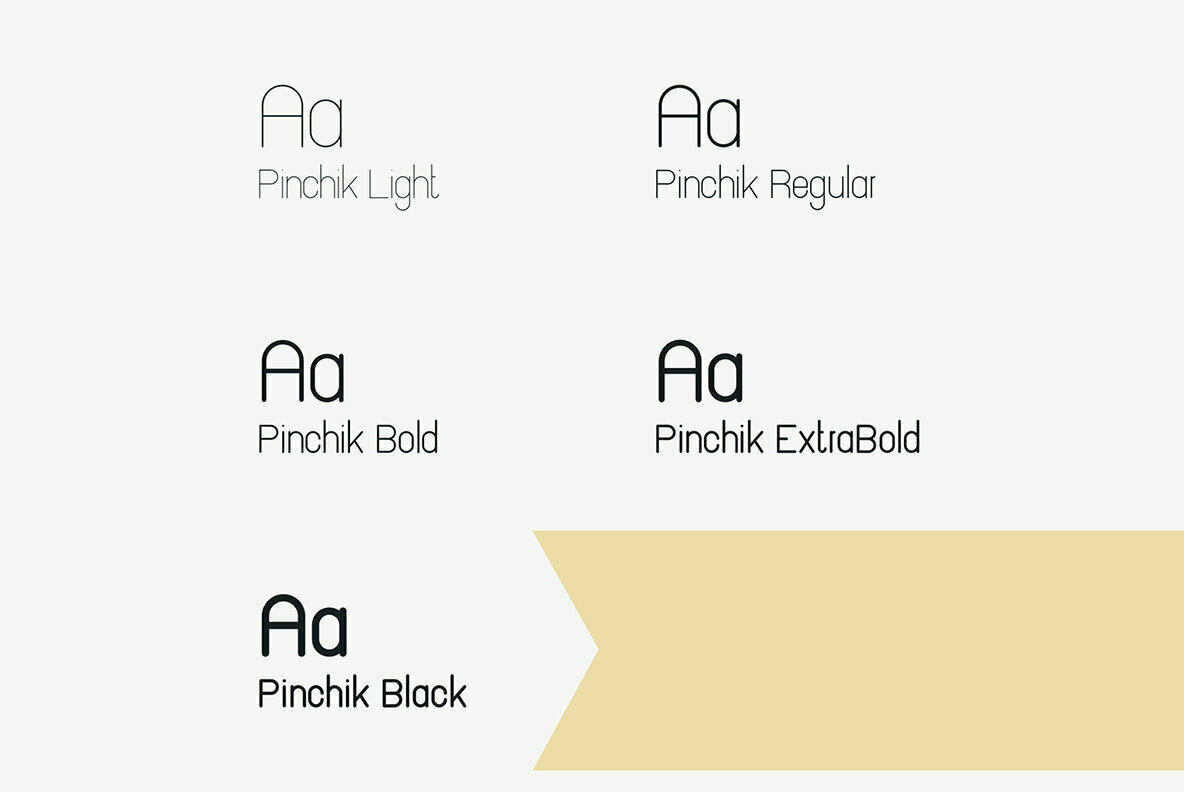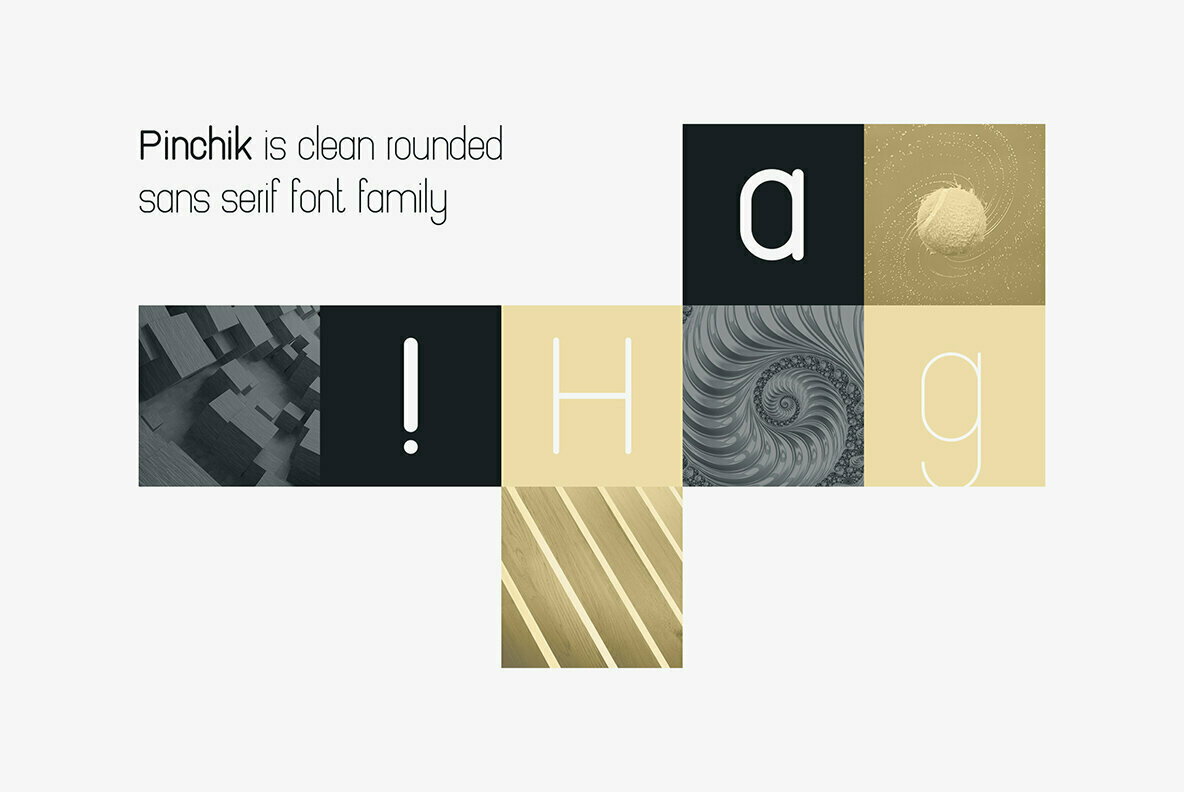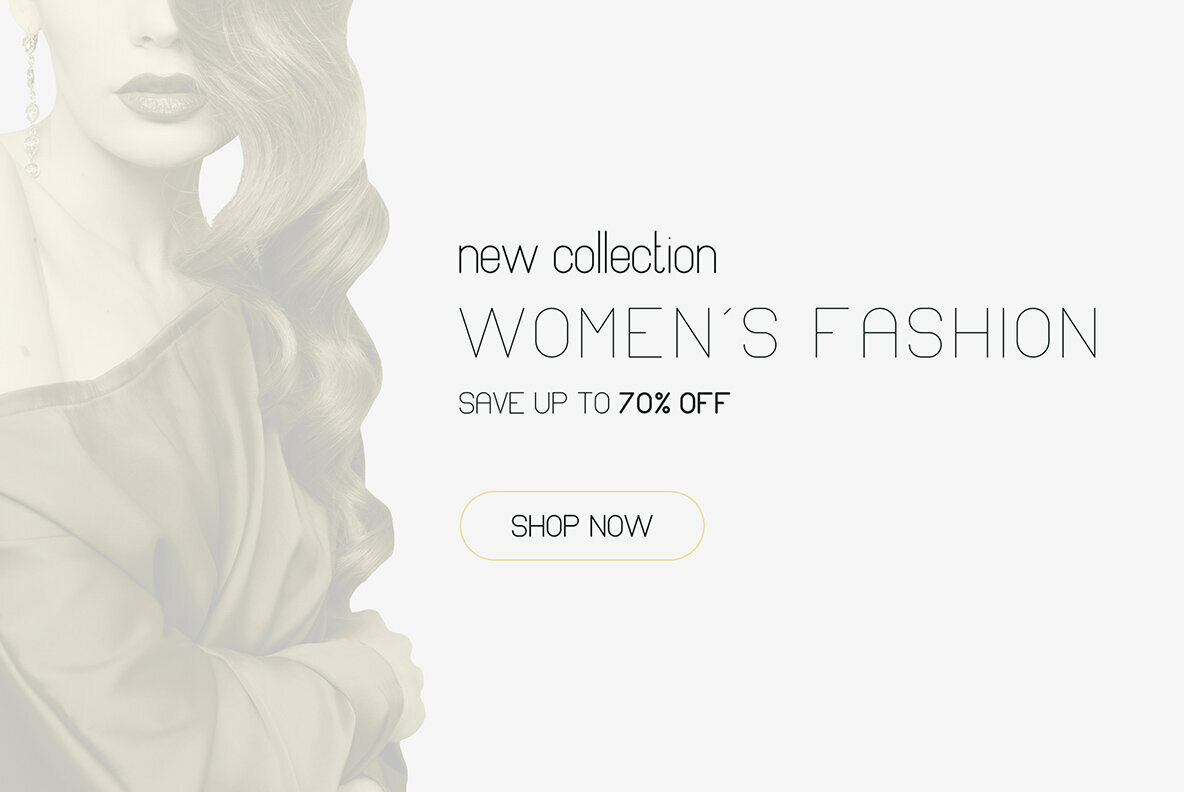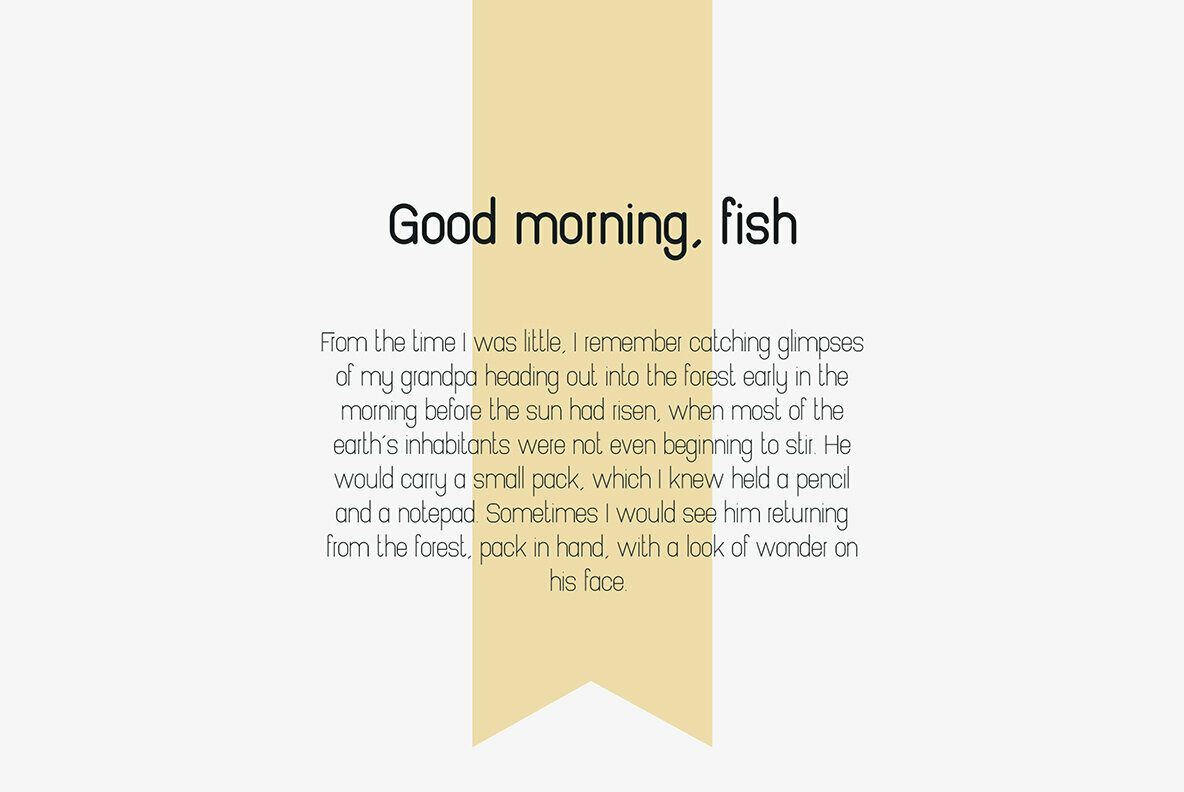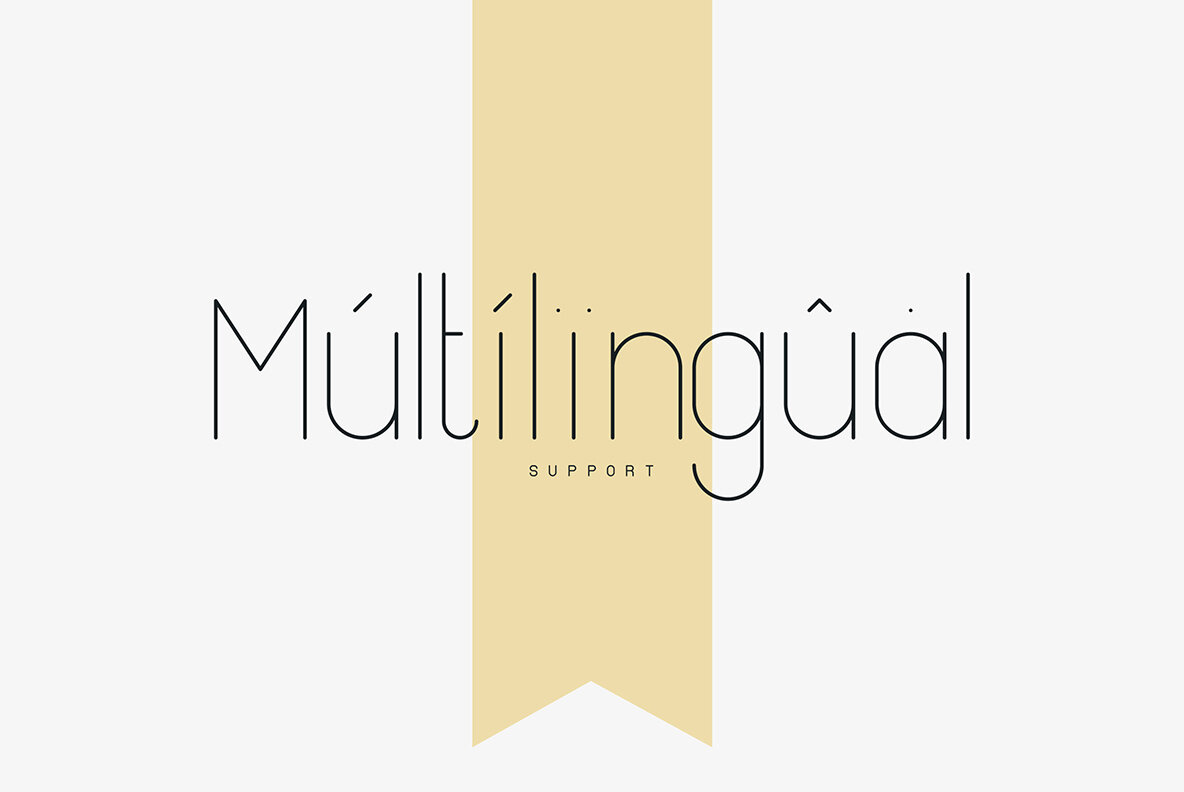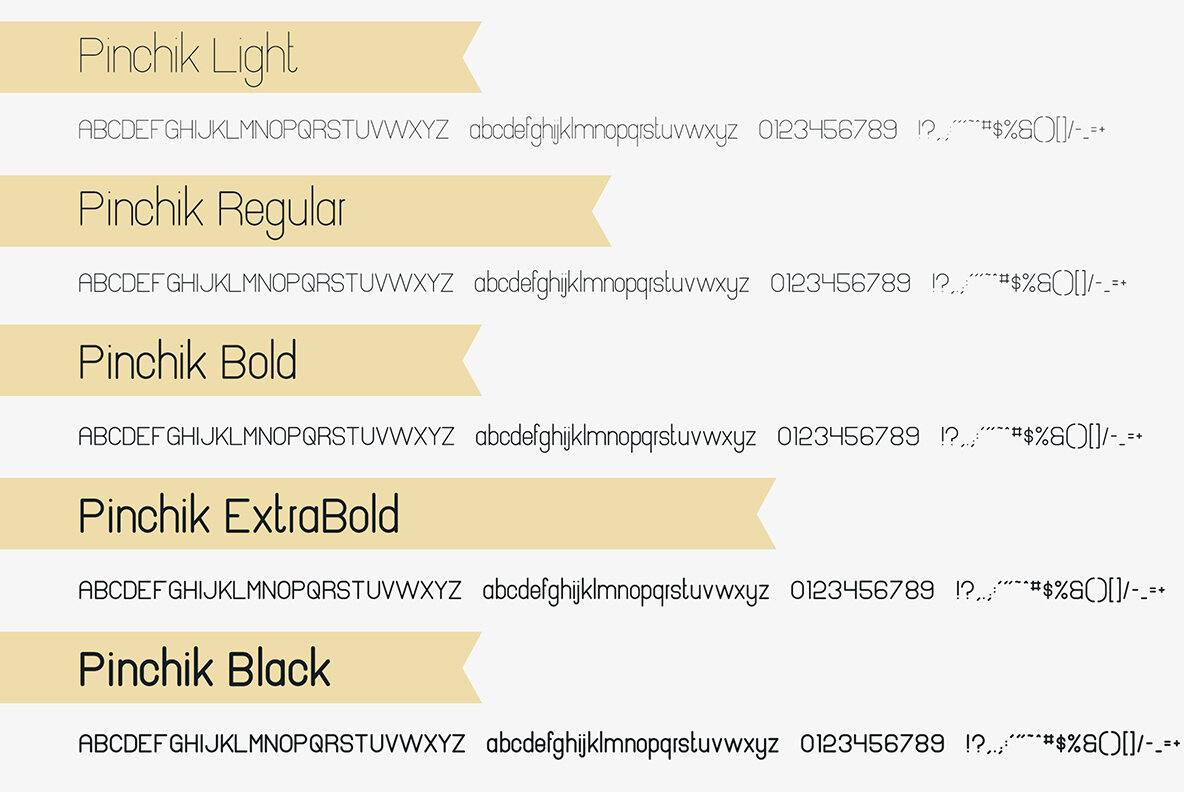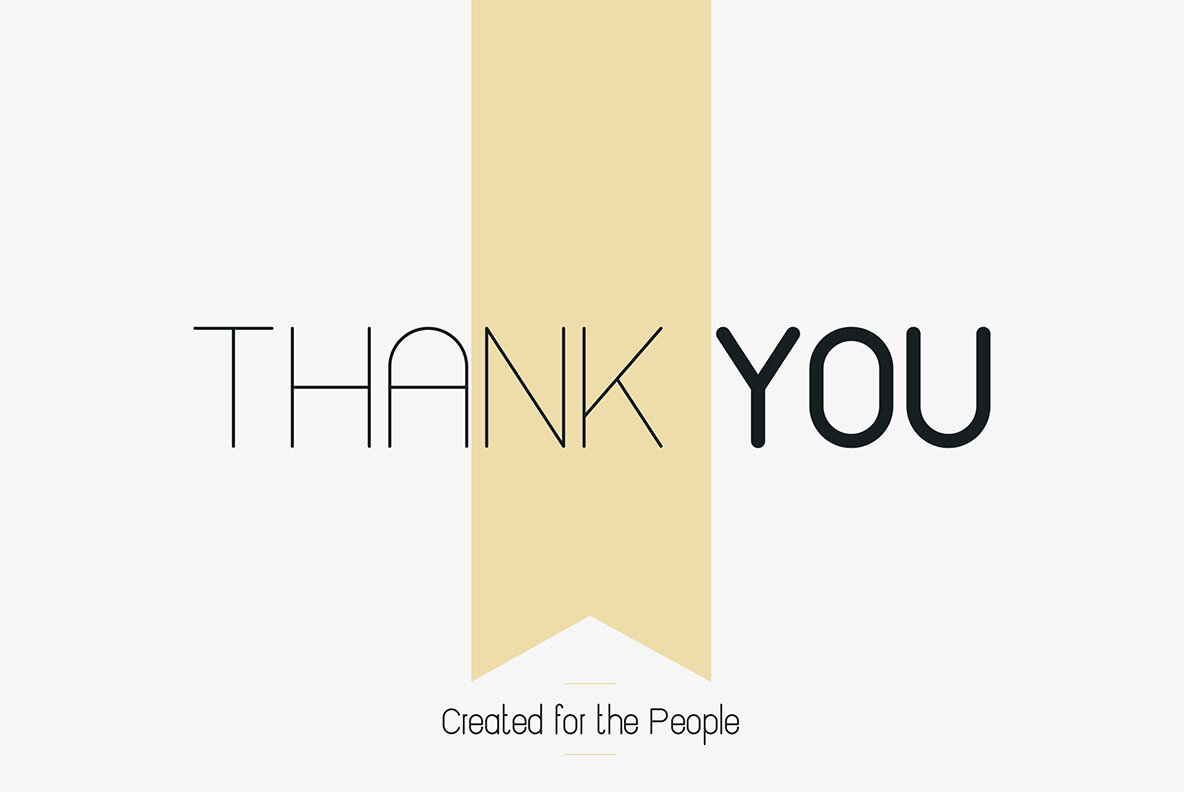
Pinchik Font
Pinchik is clean, rounded sans serif typeface with 5 fonts and multilingual support. It's a very versatile font that works great in large and small sizes. Pinchik is perfect for branding projects, home-ware designs, product packaging, magazine headers - or simply as a stylish text overlay to any background image.
- Uppercase, Lowercase, Numeral, Punctuation & Symbol
- Light
- Regular
- ExtraBold
- Black